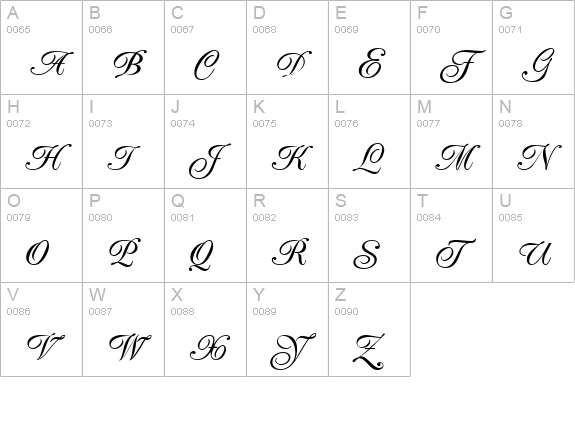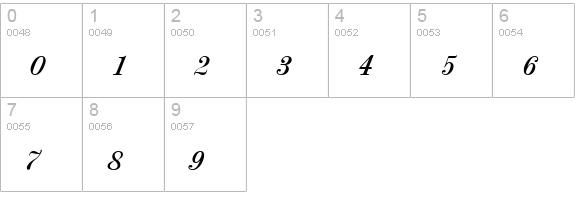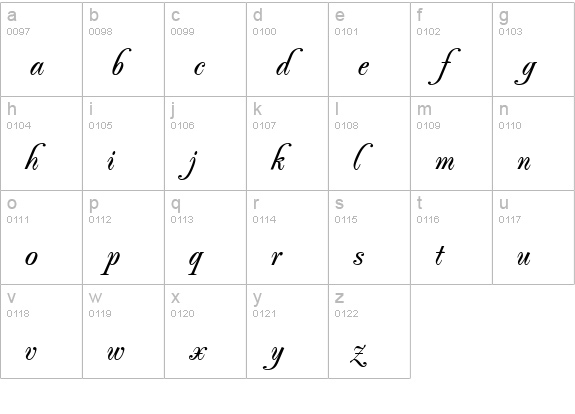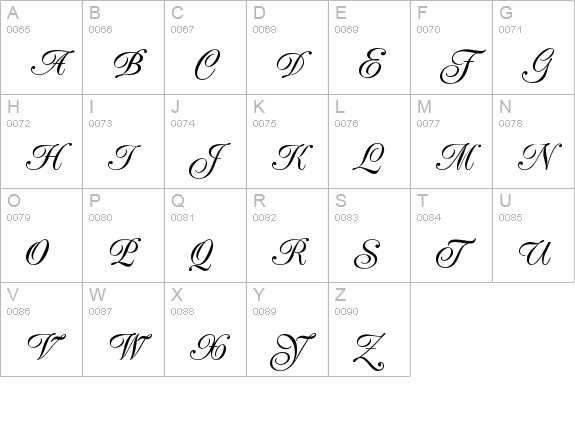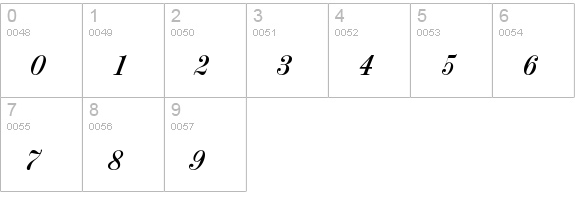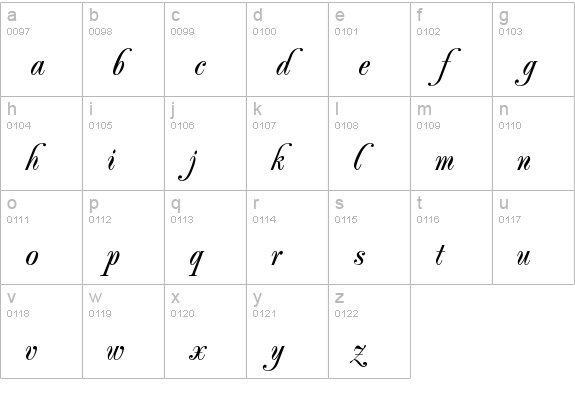
PopularScript Font Details
PopularScript font is a stunning and elegant typeface that exudes sophistication and charm. Its flowing curves and stylish flourishes make it perfect for adding a touch of class to any design project. Whether you're working on invitations, branding, or editorial design, PopularScript font will elevate your work to the next level. The best part about PopularScript font is that it is completely free to download at FontsMarket.com. You can easily access this beautiful font and use it in your projects without any cost. Don't miss out on the opportunity to enhance your designs with the timeless elegance of PopularScript font. Download it now and let your creativity shine!